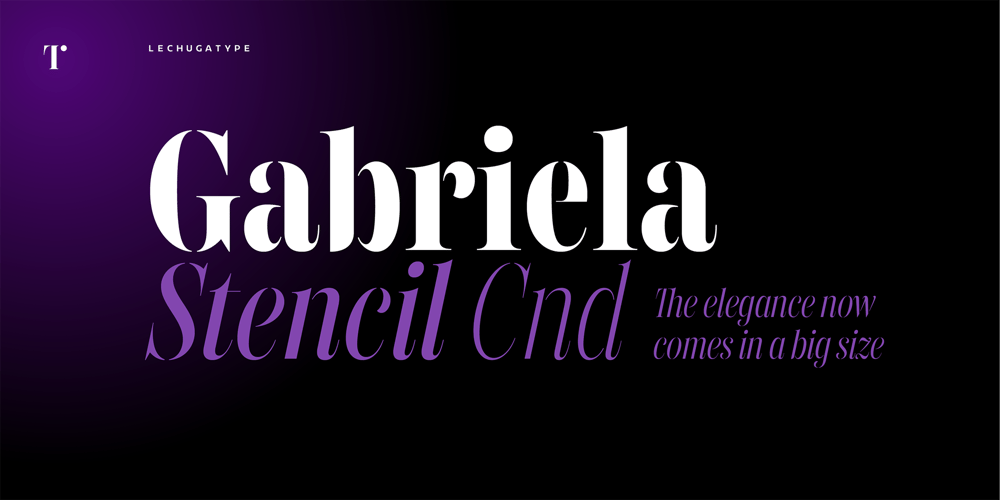
Gabriela Stl Condensed
Gabriela Stl Condensed font
Gabriela Stl Condensed Font Family was designed by Antonio Mejía and published by Lechuga Type. Gabriela Stl Condensed contains 14 styles and family package options. Gabriela Stencil, a fashion magazine-inspired typeface with an edgy, elegant couture feel that will make your designs stand out. Whether it’s for advertising, editorial, packaging, or branding, its personality will steal the show. Inspired by the style of 19th century Didone typefaces, this condensed version of Gabriela Stencil is ideal for headlines, short texts, branding, and publishing projects. The family comes in 7 weights, plus a matching italic. Includes more than 530 glyphs supporting 94 different languages, alternates, and discretionary ligatures.